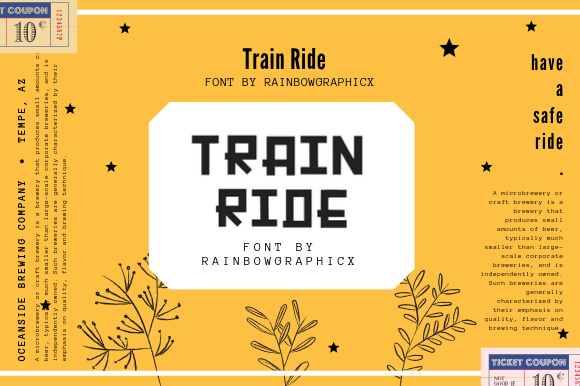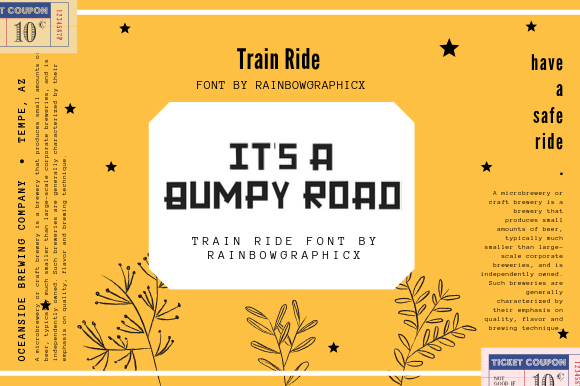
Train Ride Font
About Train Ride Font
Train Ride is a charming blackletter font with playful style. It is perfectly suited for a wide variety of projects!